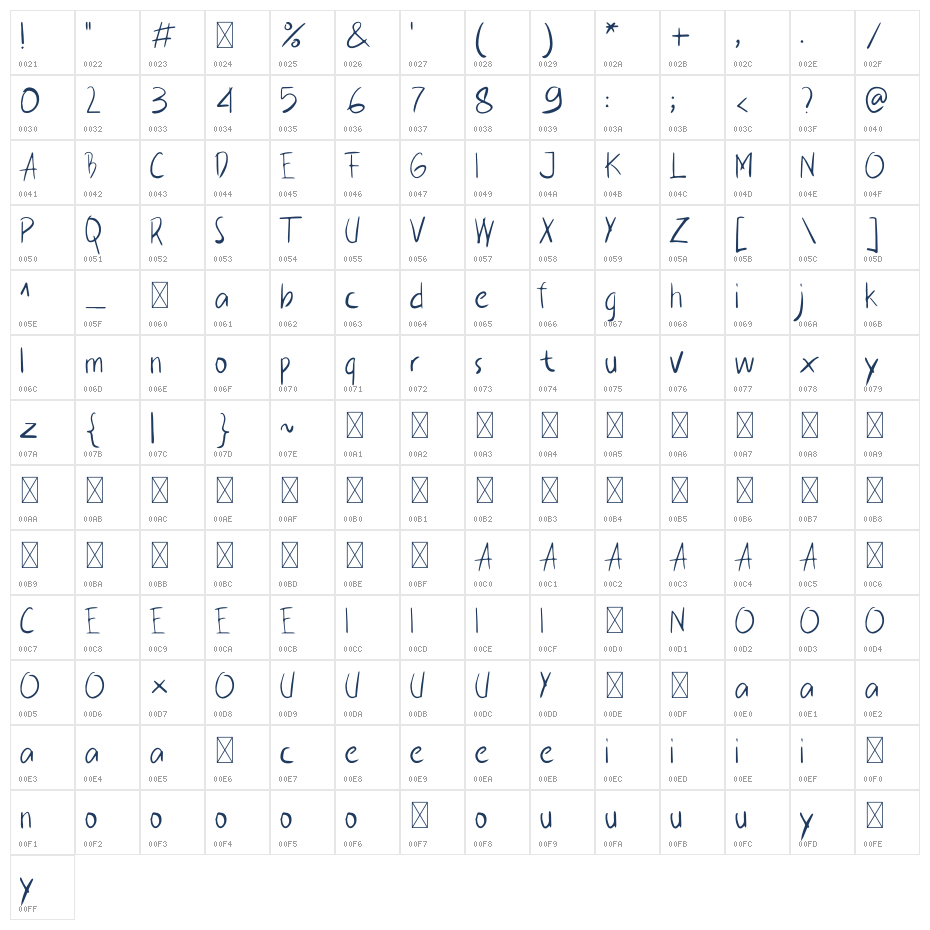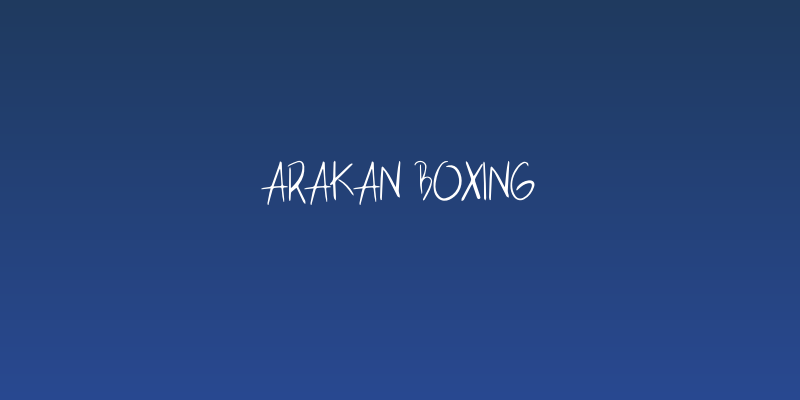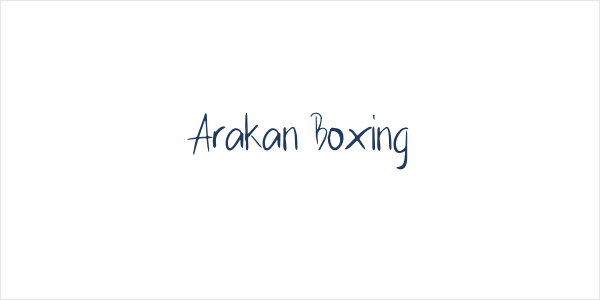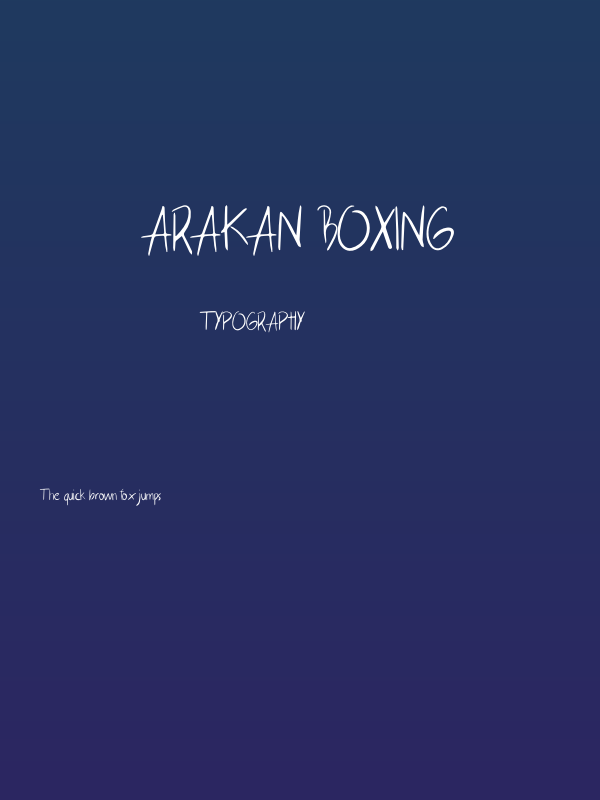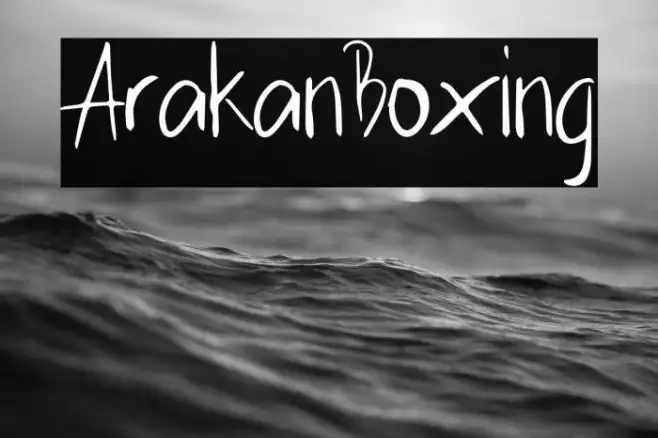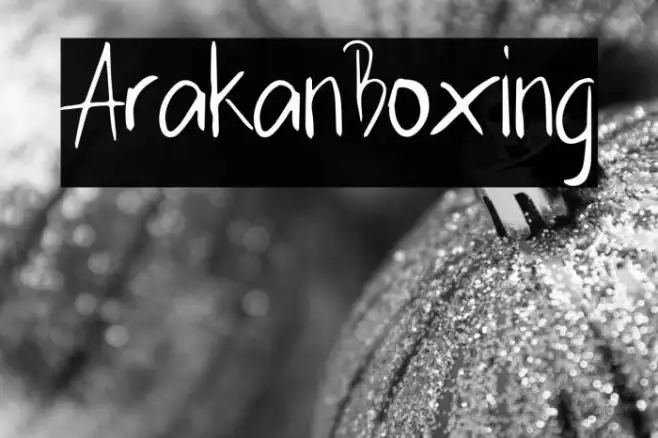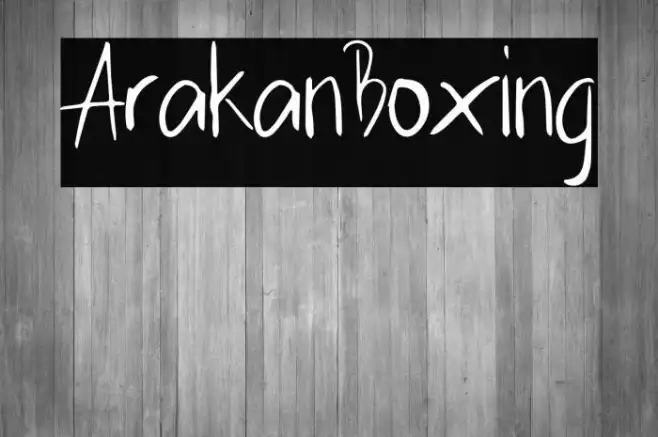
Arakan Boxing Font
Arakan Boxing Description
A playful, handwritten style font with irregular, casual strokes that resemble a child's handwriting or a sketchy, informal script.
| Overall Style | Casual, Playful, Informal |
| Use Case | Headlines, Body text, Logos, Creative projects |